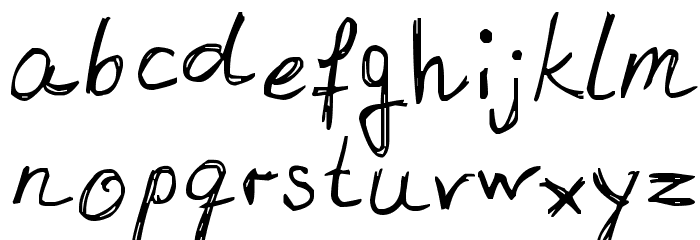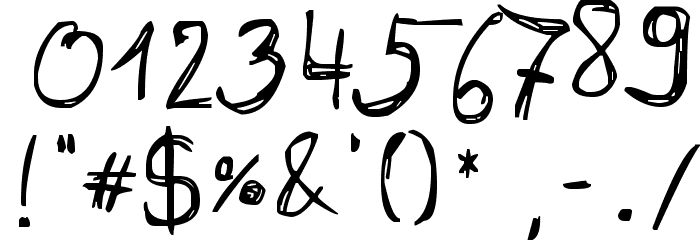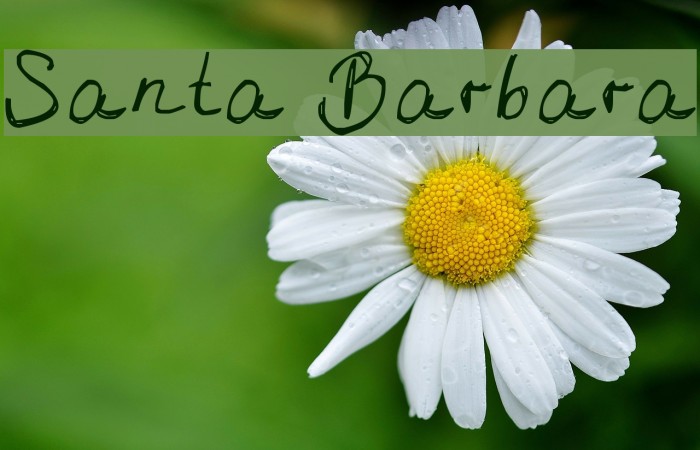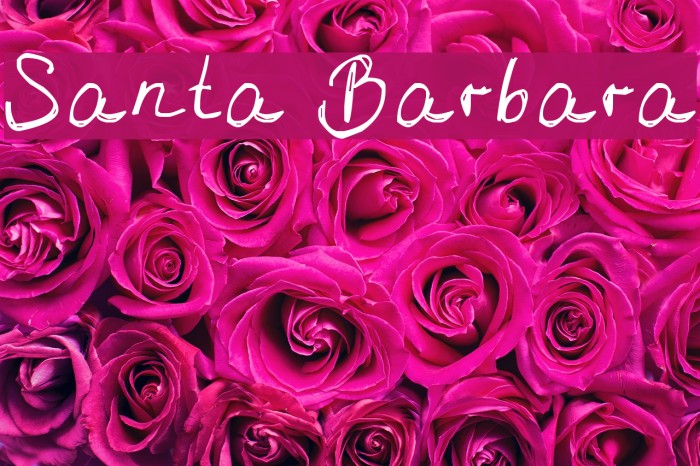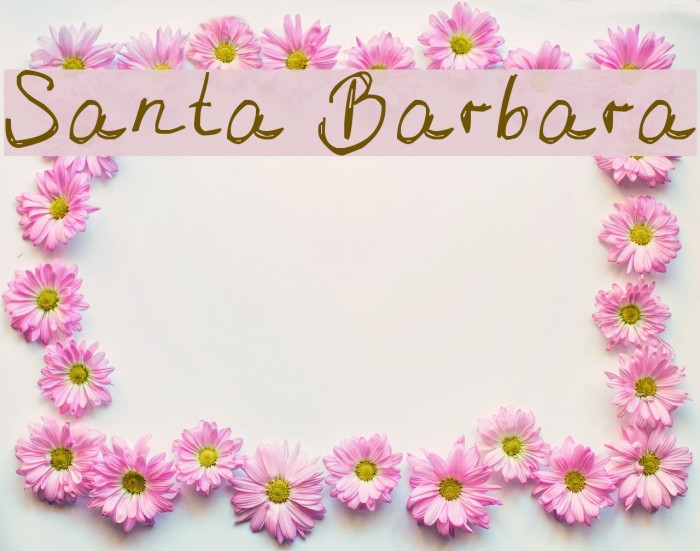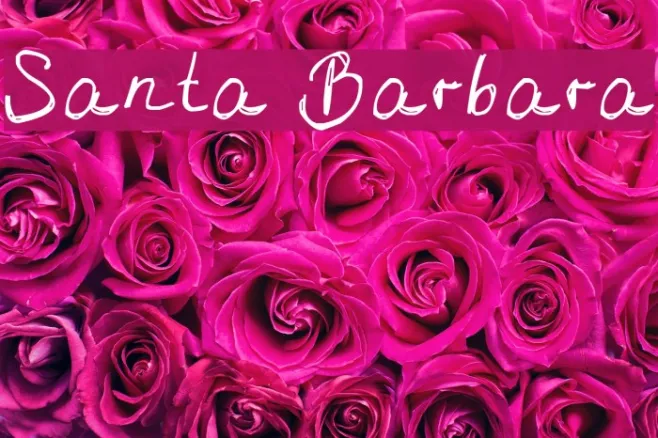
Santa Barbara Font
This font features a playful and energetic handwritten style, characterized by its uneven strokes and dynamic flow. The uppercase letters are bold and expressive, with a slightly rough texture that adds a sense of spontaneity. The lowercase letters maintain the same lively quality, with a mix of loops and curves that create a casual yet artistic appearance. Numbers and special characters follow the same aesthetic, ensuring consistency throughout. The overall design is informal and creative, making it ideal for projects that require a personal touch.
A playful, handwritten font with bold, uneven strokes and a dynamic flow.
- Proposed Projects: Ideal for greeting cards, personal branding, creative posters, and social media graphics.
- Use Case: Logos, Headlines, Creative projects